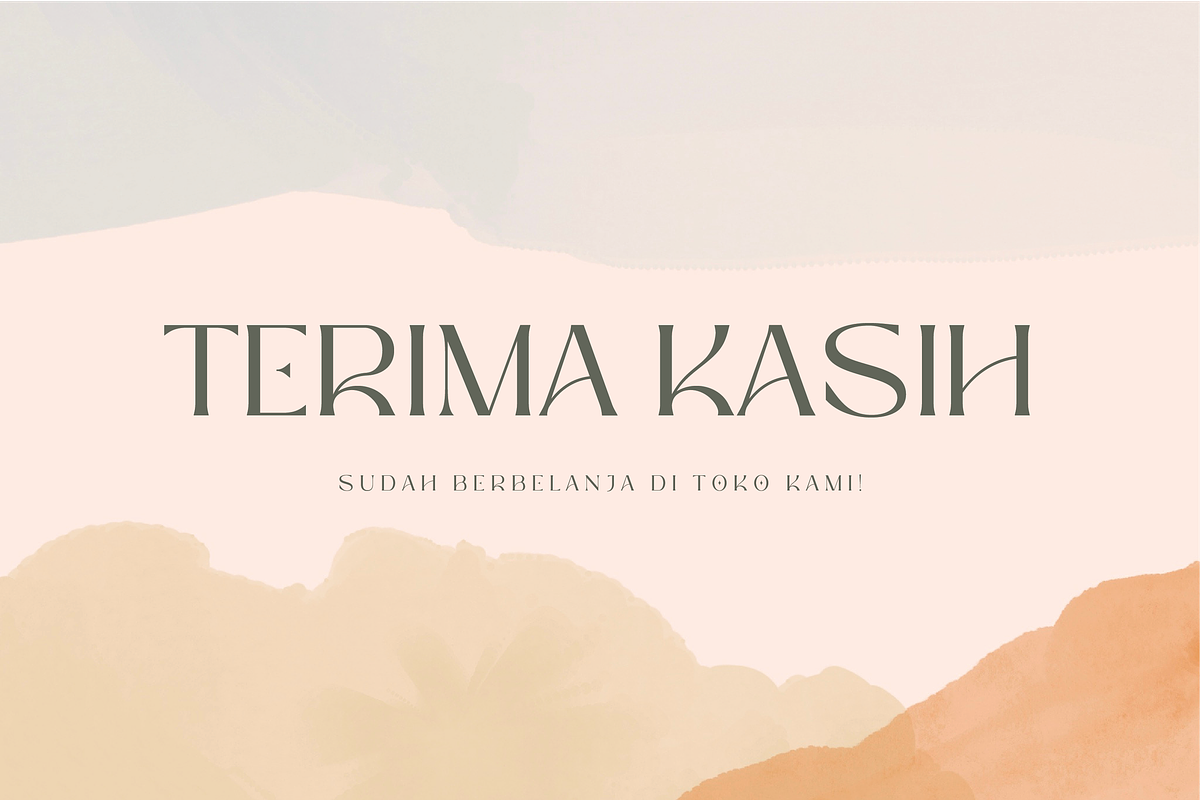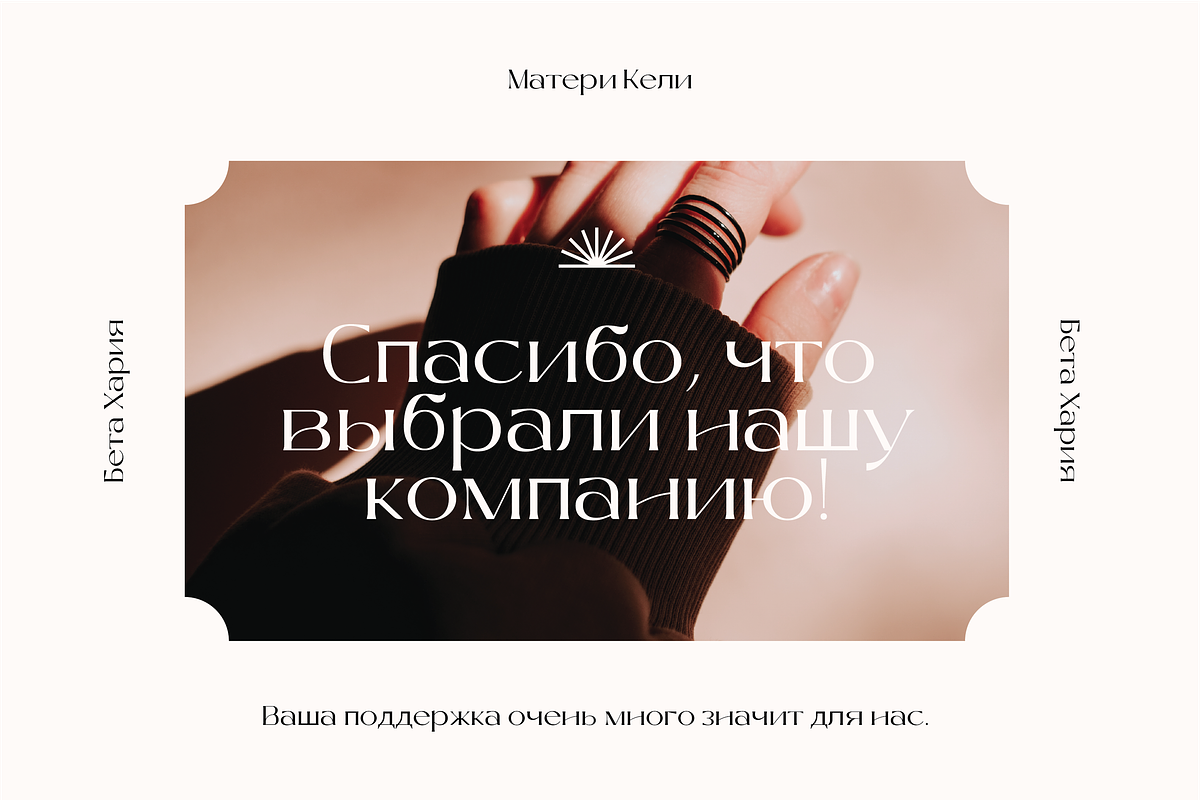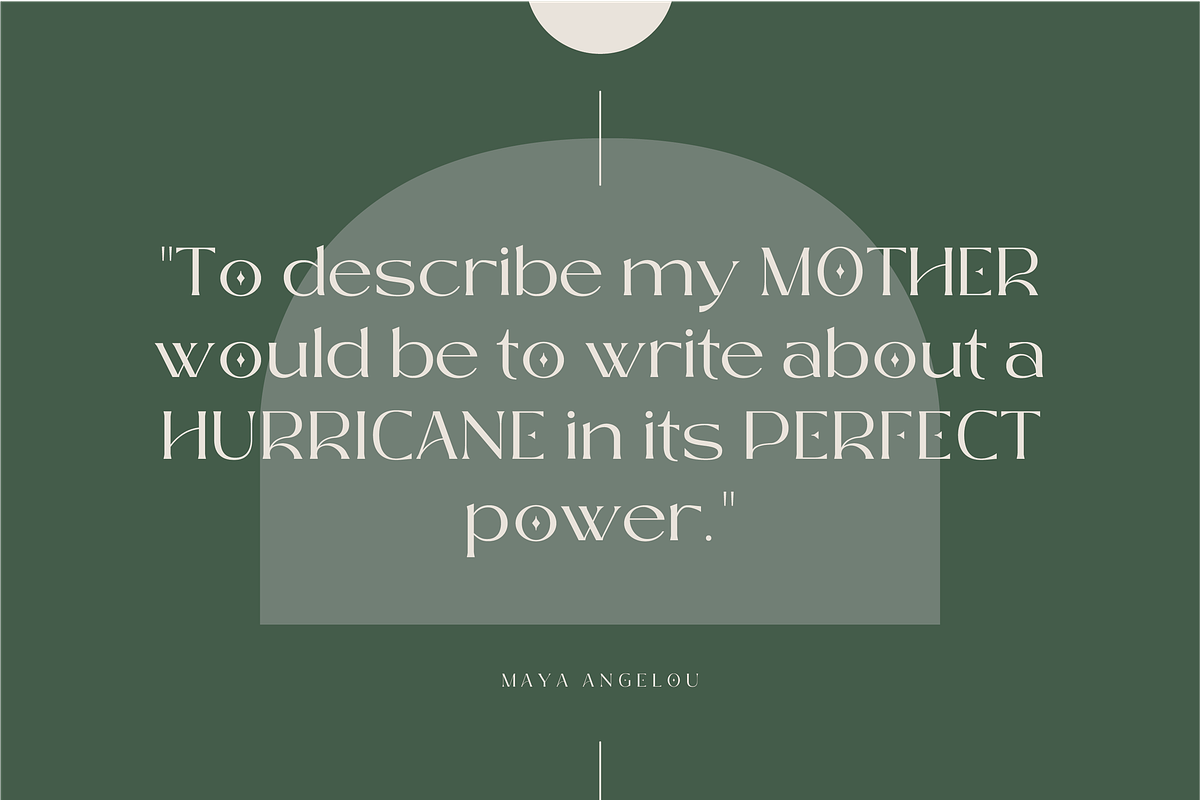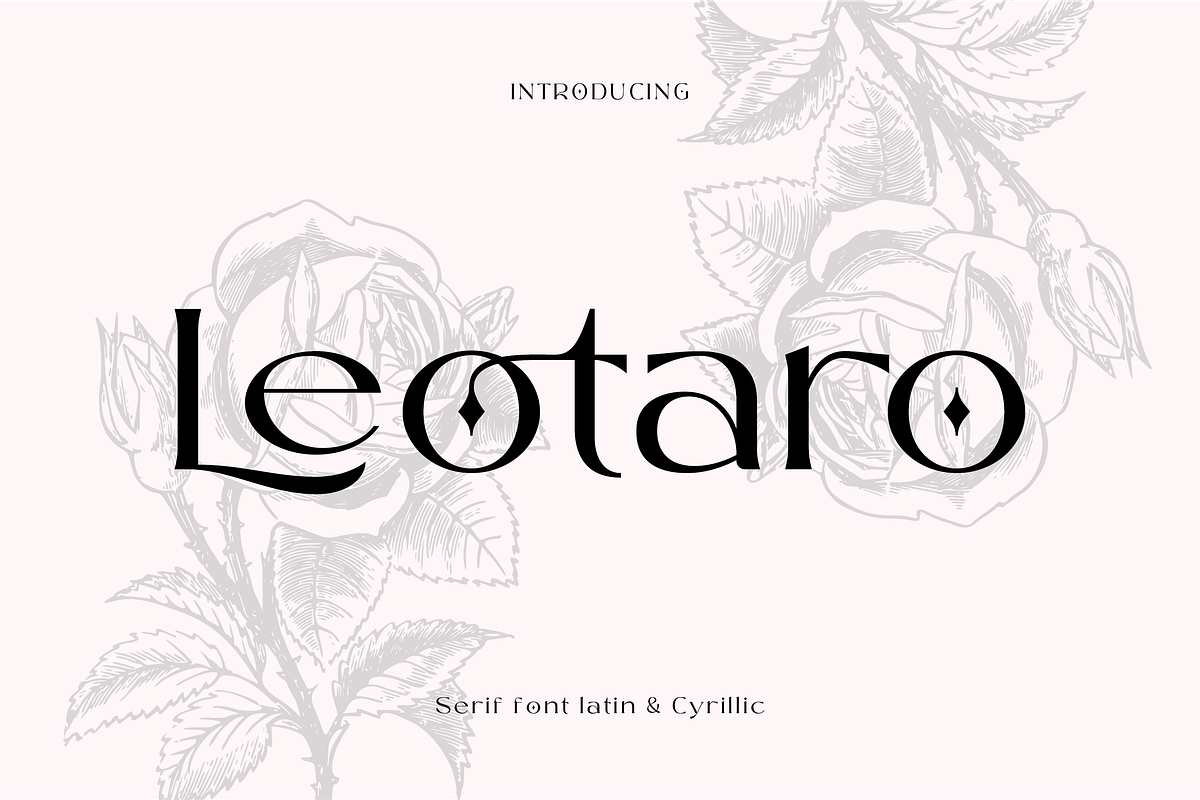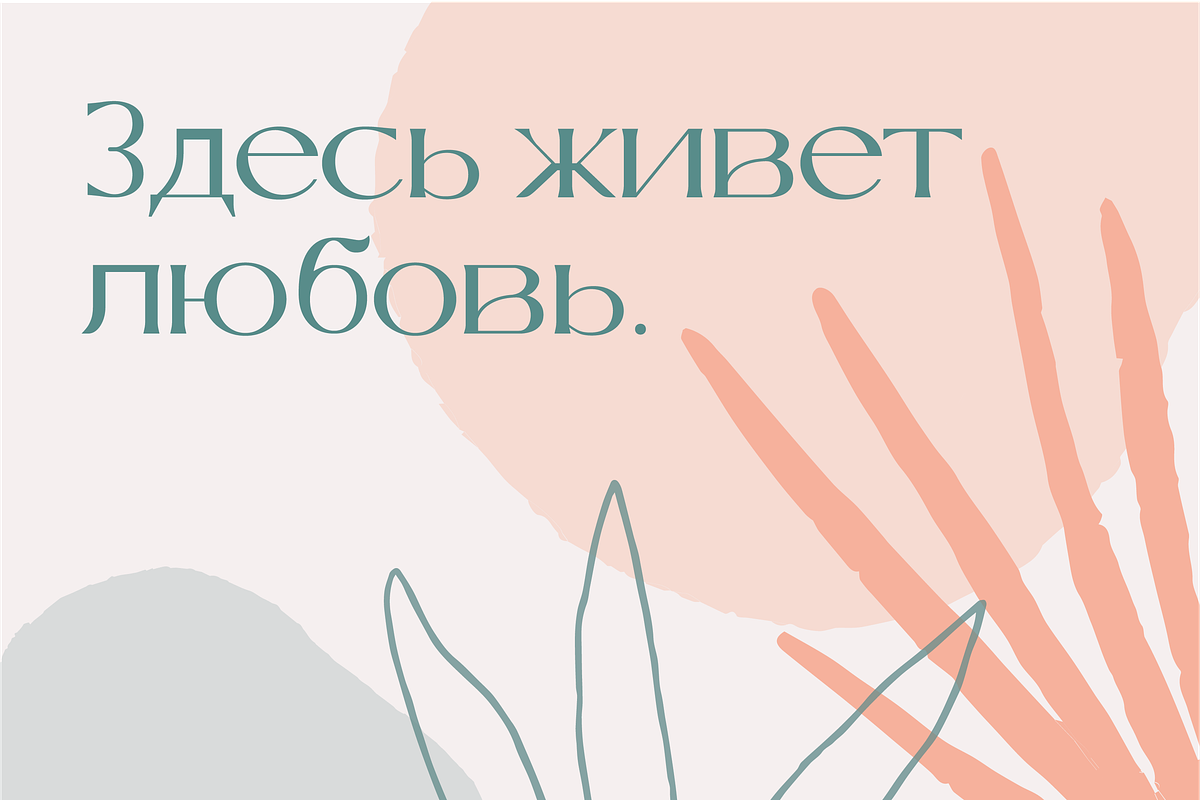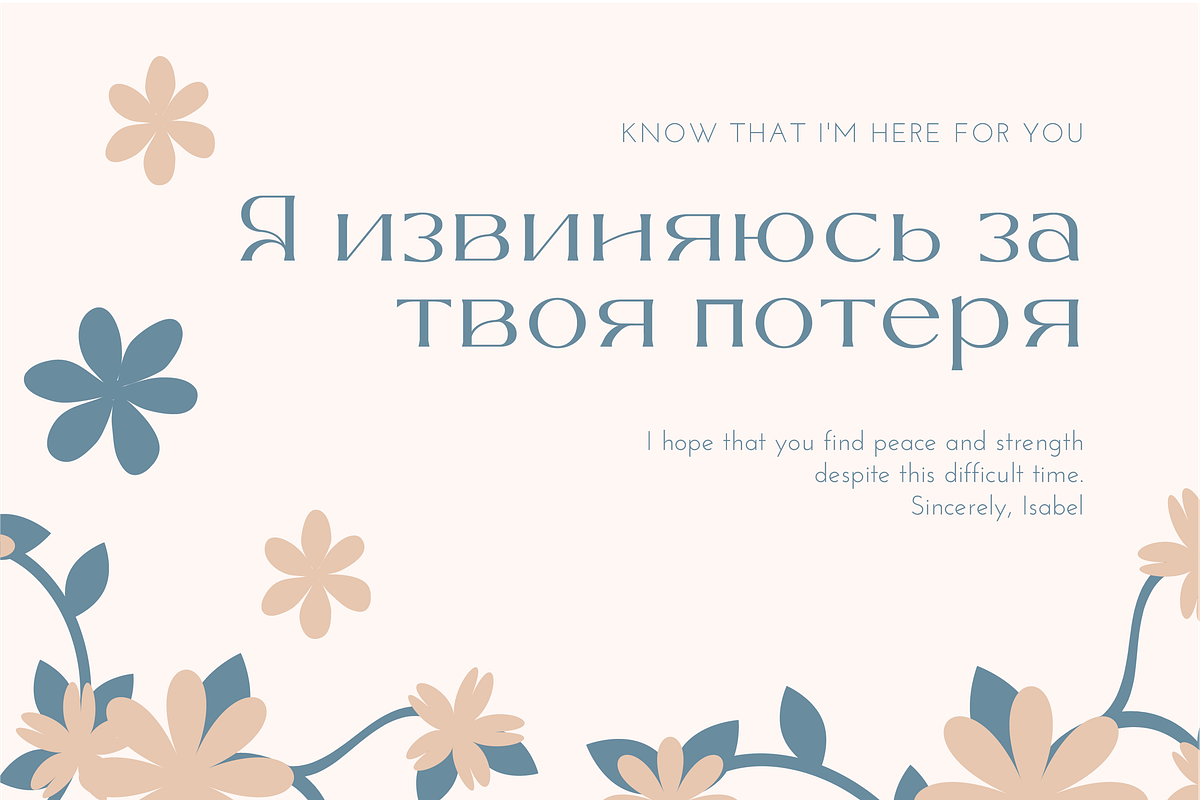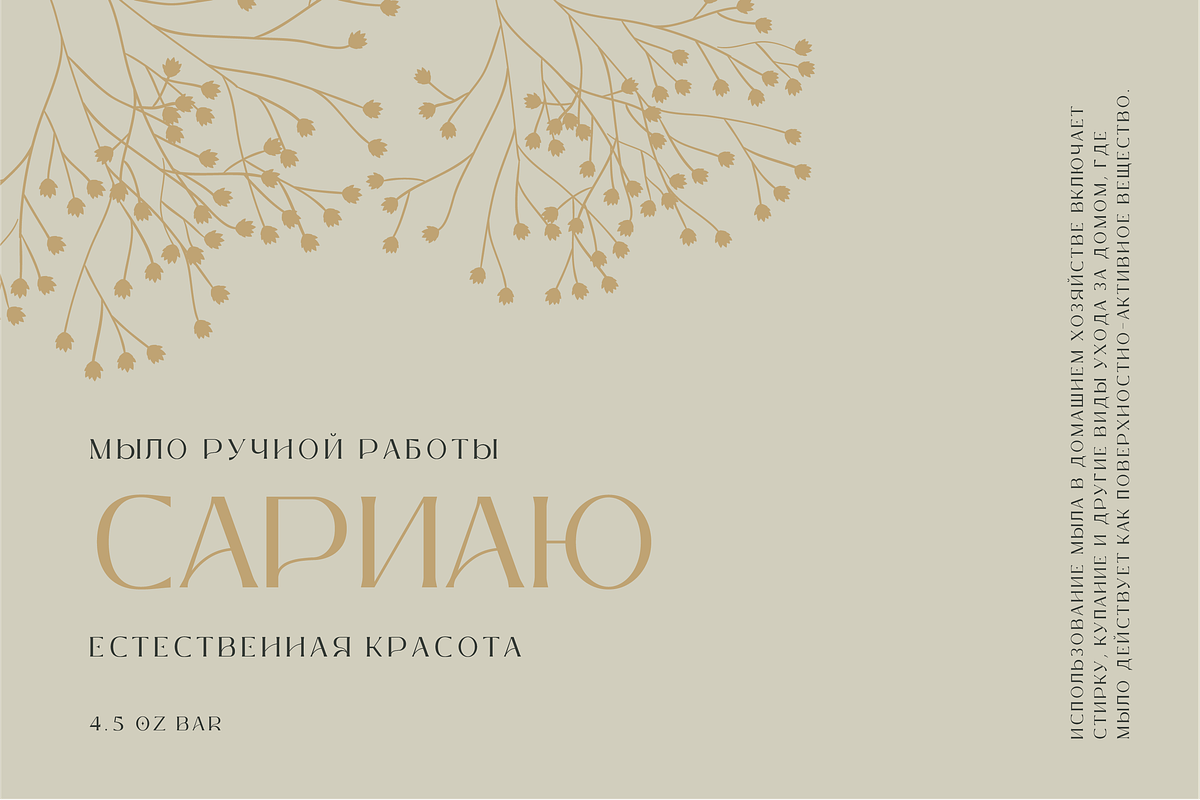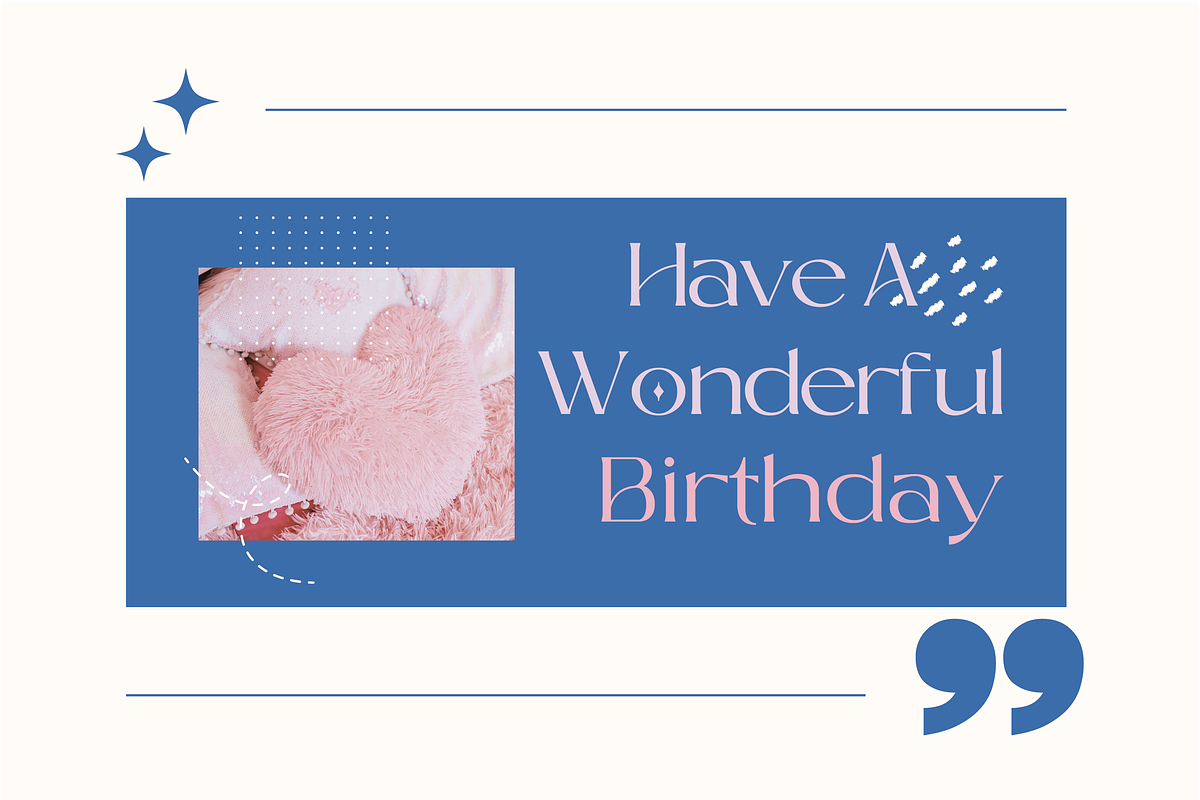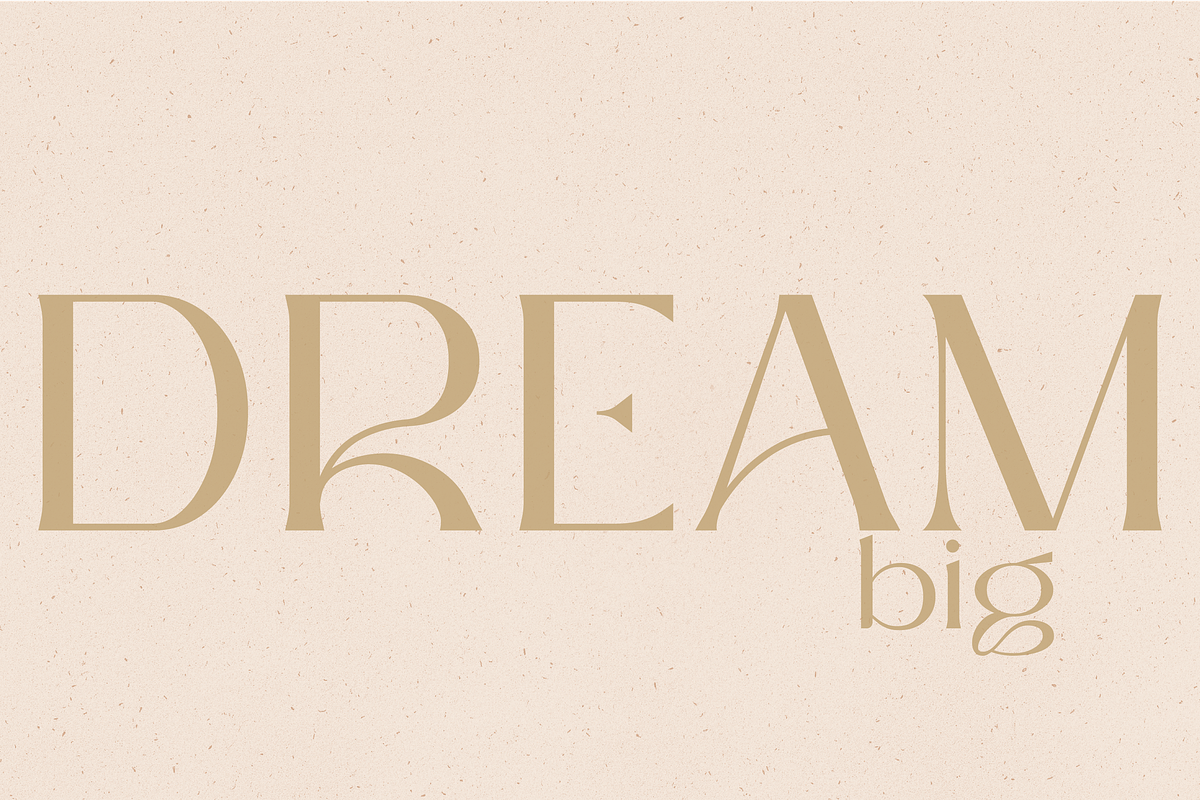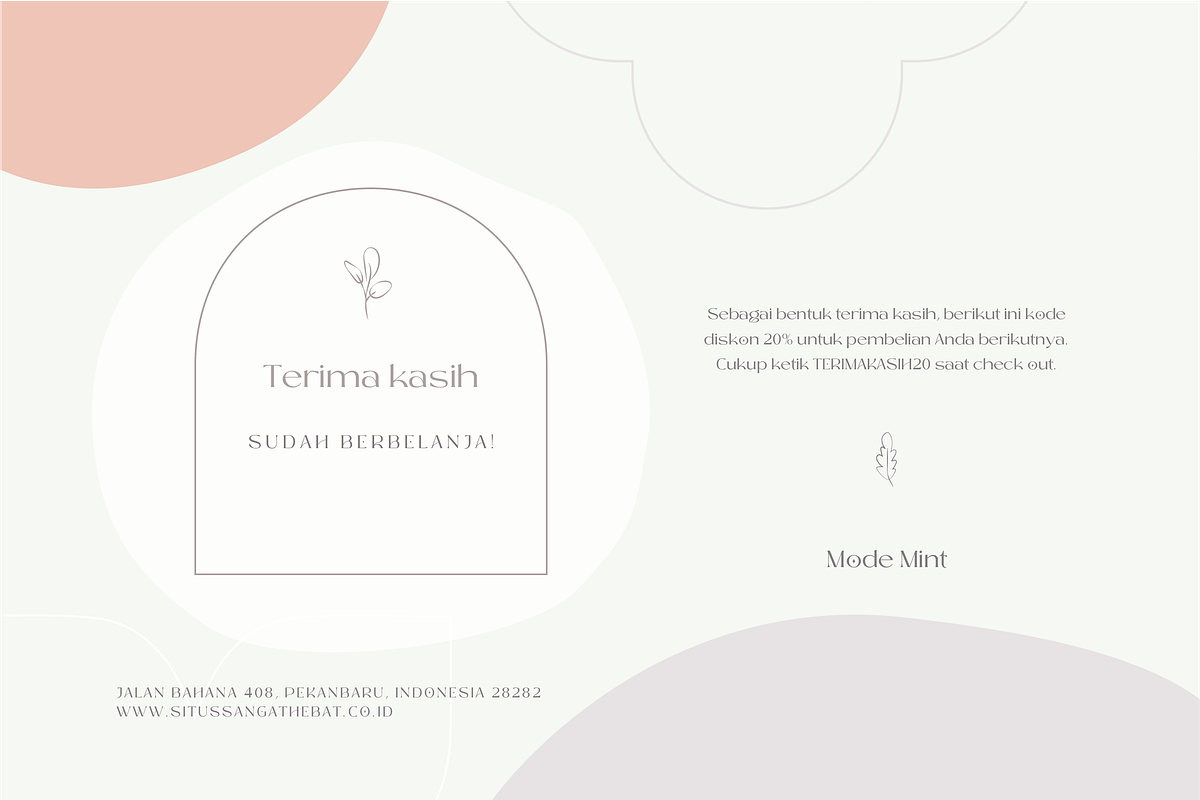
Leotaro - Serif Latin and Cyrillic
Leotaro serif font latin and cyrillic
Leotaro is a serif style font derived from Reclaim font with a simple and elegant design that will make your Leotaro font project unforgettable.
Leotaro brings Latin and Cyrillic letters to fulfill many functions of this Leotaro font.
- Standard glyphs uppercase and lowercase letters
- Numerals, a large range of punctuation and ligatures.